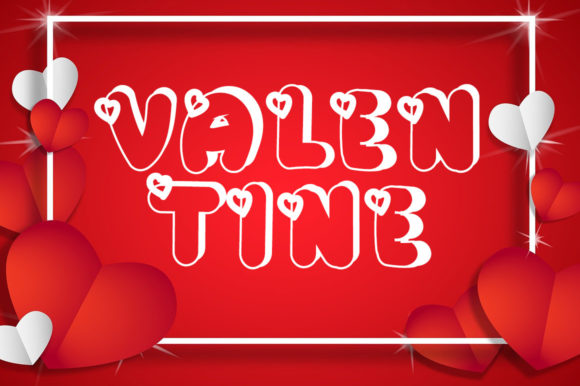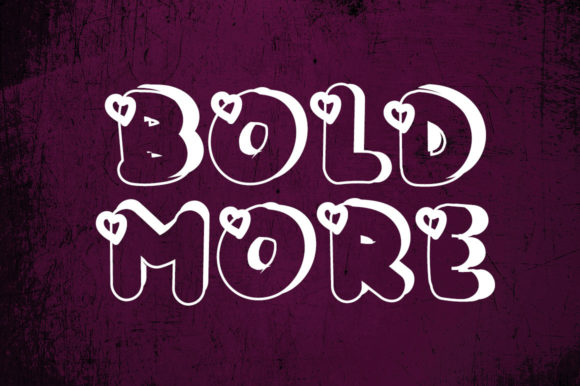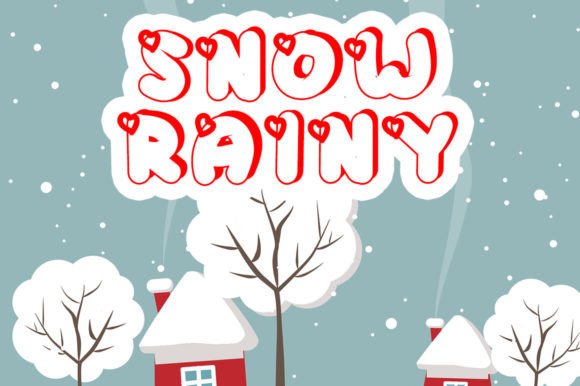
Introduction to Love Child Font
Love Child is a beautiful and sweet font.
It is fresh, clean, and elegant This font will look amazing in a great number of projects, both formal and informal.
Key Features of Love Child Font
Why Choose Love Child Font?